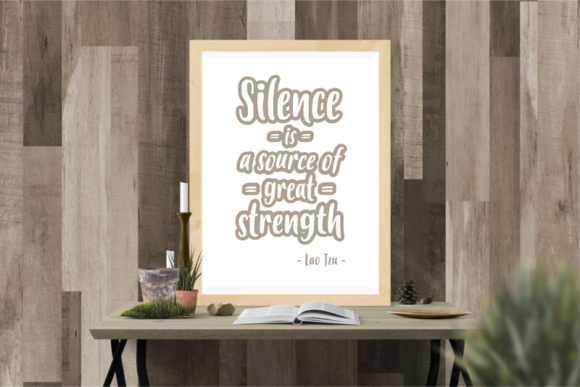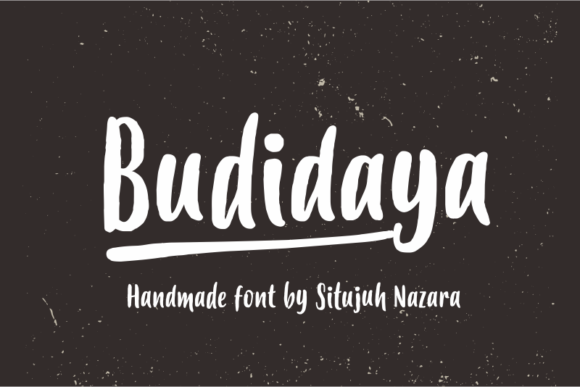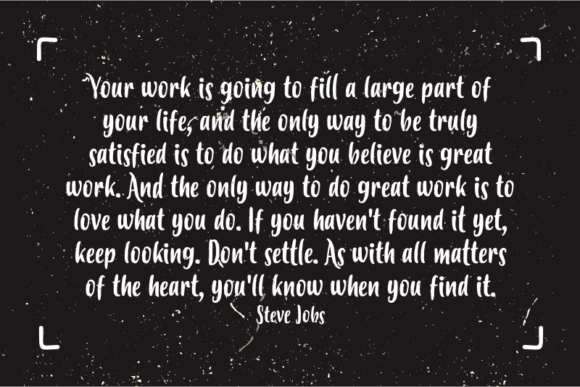
Budidaya Font
The Budidaya font is a handmade font created by Situjuh Nazara.
This font is easy to the eyes and works great for creating personalized, yet professional looking designs.
The Budidaya font comes with a unique long underline ligature. You can activate it by typing underscore (_) twice or more (up until five times). For example: Budi____daya